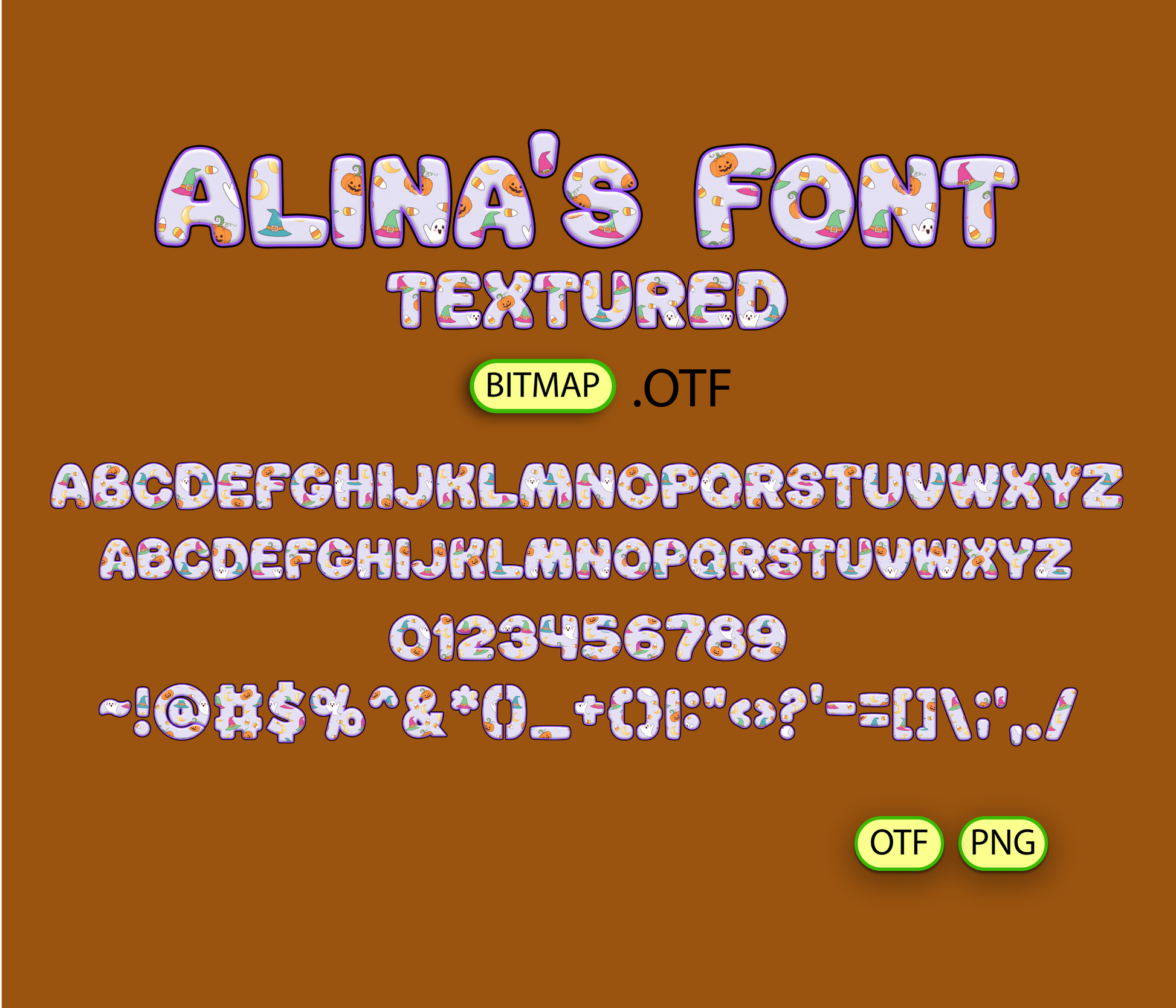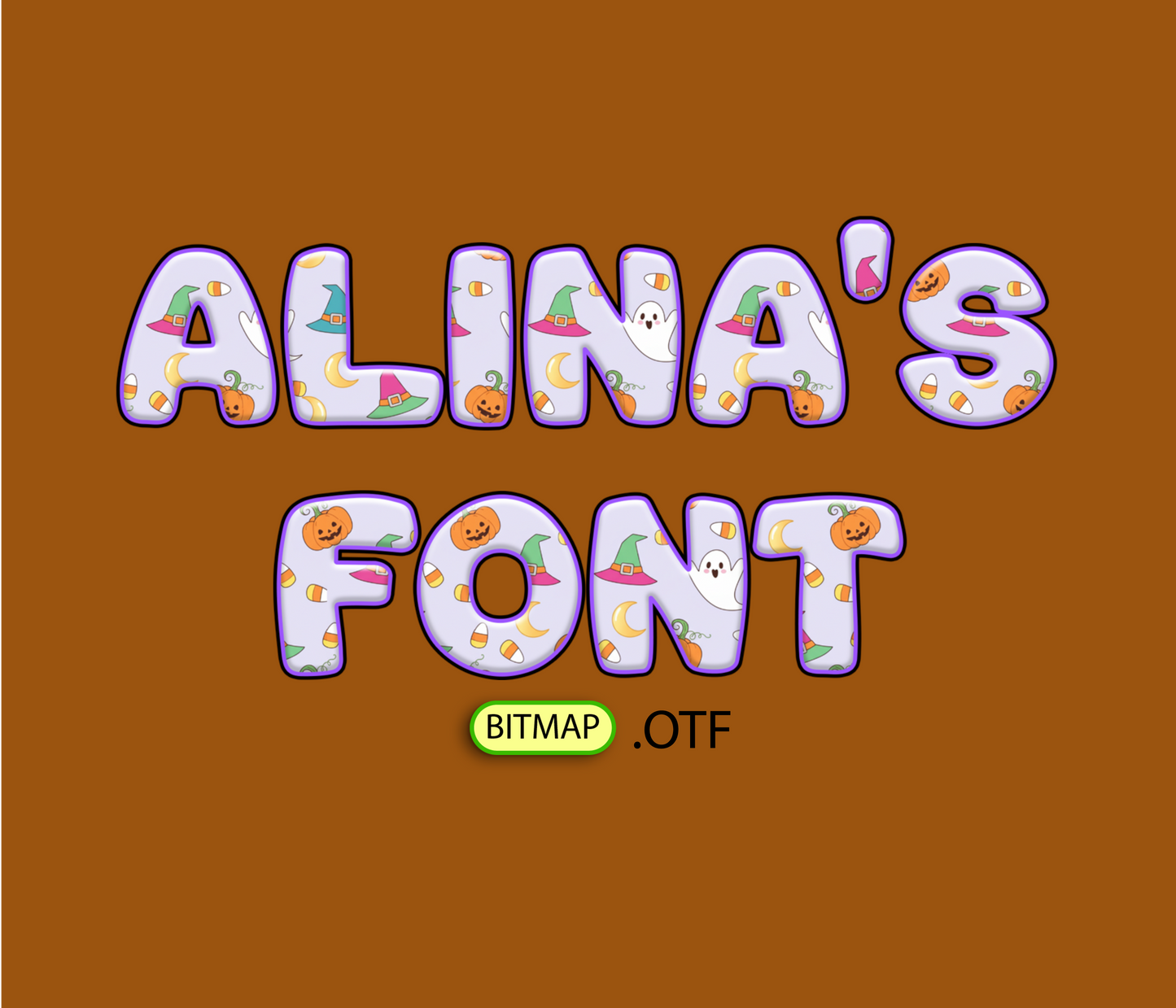
Ghoulish Fun Colorful Halloween Pattern Font
Step into the spooky world of vibrant celebrations with our Ghoulish Colorful Halloween Pattern font, capturing the essence of festive frights and playful scares. Perfect for Halloween enthusiasts, party planners, event organizers, and designers, this font brings the cheerful, eerie spirit of seasonal festivities to your projects. Create enchanting materials, merchandise, or digital content with the whimsical energy of October celebrations.
Our Ghoulish Colorful Halloween Pattern font features playful, spooky lines and festive characters reflecting the world of colorful celebrations. Ideal for:
- Event Promotions: Create captivating invites, posters, and banners for Halloween parties, trick-or-treat events, and costume gatherings that capture the spirit of festive frights
- Merchandise Design: Perfect for t-shirts, posters, and accessories that showcase the vibrant aesthetic of spooky celebrations and playful patterns
- Digital Media: Enhance websites, blogs, and social media with festive headers and graphics that express the joy of Halloween festivities
- Seasonal Content: Add authentic flair to party decor, costume projects, and creative designs inspired by October traditions
- Personal Projects: Bring spooky fun to scrapbooking, DIY crafts, and home decor inspired by the world of colorful celebrations
Our font pays tribute to the iconic world of Halloween celebrations, empowering your designs with its playful and festive spirit. Whether crafting promotional materials, designing merchandise, or adding a spooky touch to personal projects, this font communicates the cheerful essence of October festivities. Ready to inject colorful Halloween magic into your creations? This font is your key to exciting, impactful design.